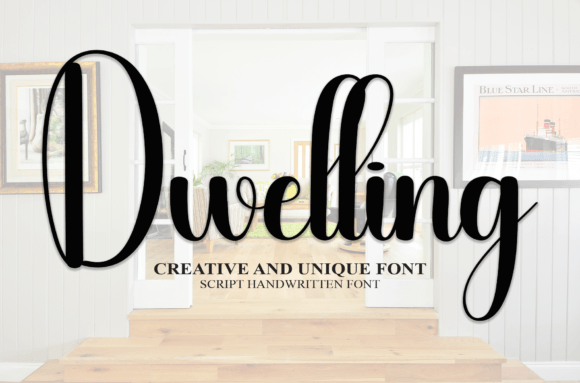
Embark on a delightful journey with Dwelling Font, a script font that exudes warmth and charm. Its hand-lettered design evokes a sense of nostalgia and playfulness, making it the perfect choice for creating designs that resonate with your audience. Whether you're a seasoned designer or just starting out, Dwelling Font is an essential tool for adding a personal touch to your work.
With its elegant curves and flowing lines, Dwelling Font brings a touch of whimsy and sophistication to any project. Its versatility shines in wedding invitations, greeting cards, social media posts, branding materials, and more. Let Dwelling Font be your creative companion as you craft designs that capture hearts and leave a lasting impression.
Imagine the joy of receiving a wedding invitation written in Dwelling Font, its graceful letters dancing across the page and inviting you to a celebration of love. Or envision your business cards adorned with Dwelling Font, making a statement of elegance and professionalism. From personal projects to commercial designs, Dwelling Font is your trusted partner in creating designs that connect and inspire.
Dwelling Font is more than just a font; it's an expression of your unique style and creativity. Its charming imperfections and delightful details add a touch of authenticity to your designs, making them stand out from the crowd. So, embrace the magic of Dwelling Font and embark on a creative journey that will leave your audience enchanted.